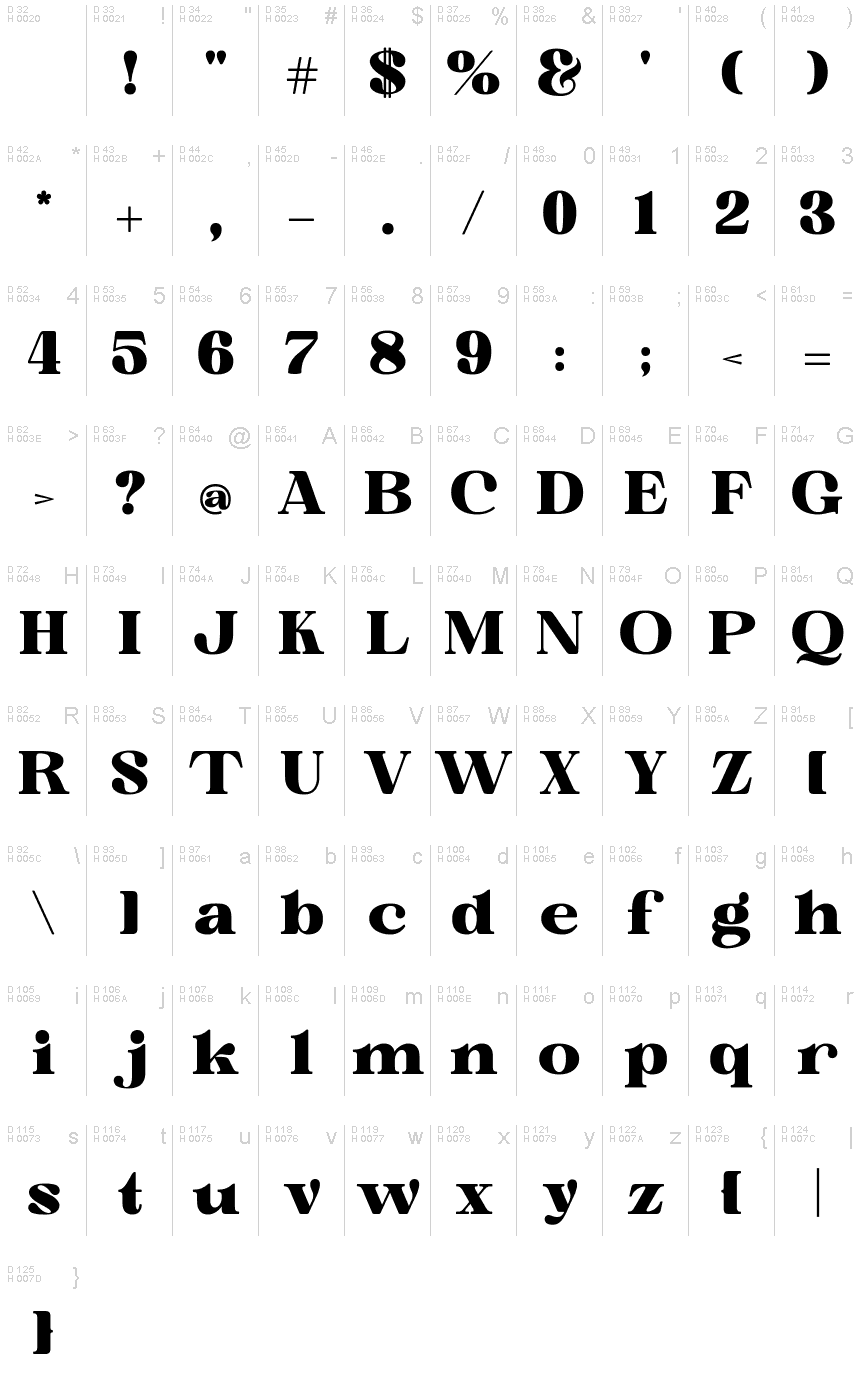
Morning Sweetest Demo Black
Embrace the grandeur of Morning Sweetest Black, a font that exudes timeless elegance with a modern twist. Crafted by TypeClassHeroes, this classic serif member of the Morning Sweetest family boasts an ultra-bold weight paired with a semi-expanded width, making it a standout choice for impactful headlines and sophisticated branding. Its robust curves and subtle intricacies lend an air of luxury to any creative endeavor, from editorial spreads to upscale advertising campaigns.
Morning Sweetest Black is not just a font; it's the embodiment of bold sophistication tailored for designers who dare to make a statement.